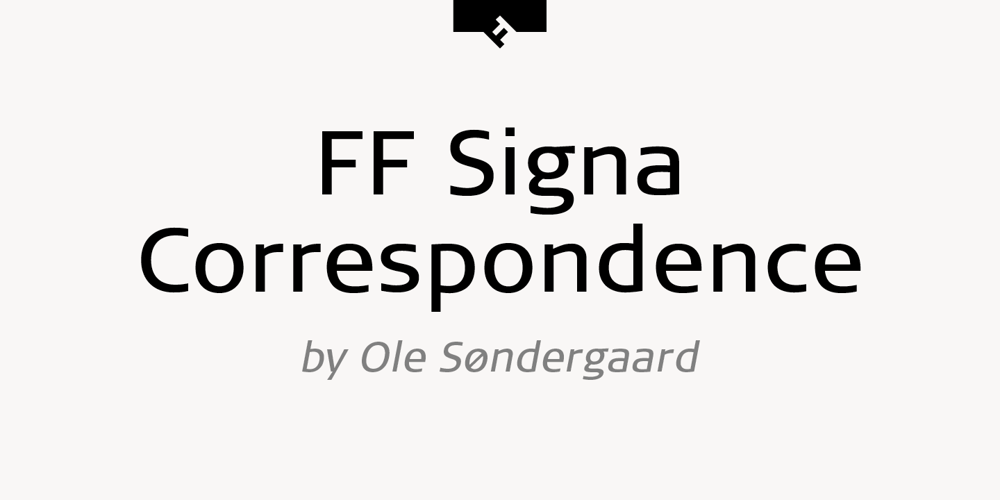
FF Signa Correspondence Font Family was designed by Ole Berntsen Søndergaard and published by FontFont. FF Signa Correspondence contains 4 styles and family package options. Danish type designer Ole Søndergaard created this sans FontFont in 2002. The family contains 4 weights: Regular, Italic, Bold, and Bold Italic and is ideally suited for logo, branding and creative industries and small text. FF Signa Correspondence provides advanced typographical support with features such as ligatures, alternate characters, case-sensitive forms, fractions, super- and subscript characters, and stylistic alternates. It comes with a complete range of figure set options – oldstyle and lining figures, each in tabular and proportional widths. As well as Latin-based languages, the typeface family also supports the Cyrillic writing system. This FontFont is a member of the FF Signa super family, which also includes FF Signa, FF Signa Serif, FF Signa Serif Stencil, and FF Signa Stencil.